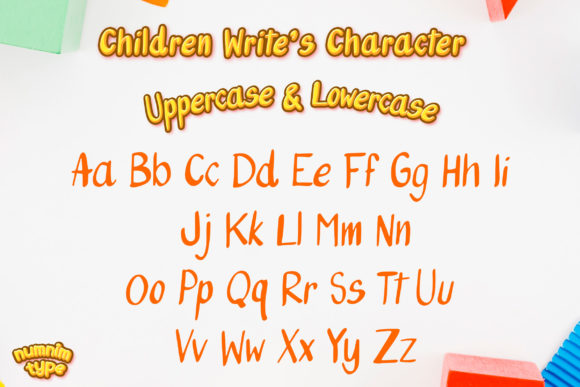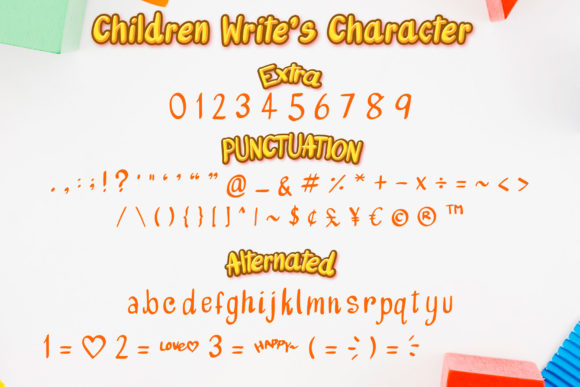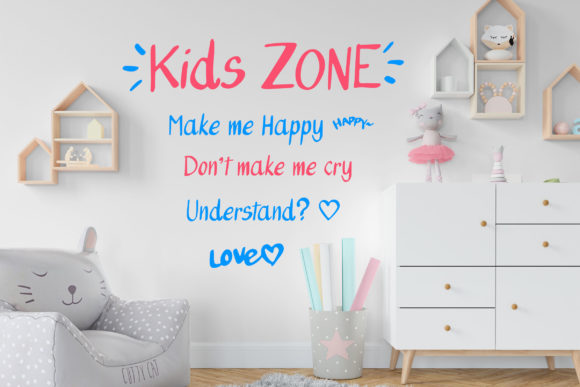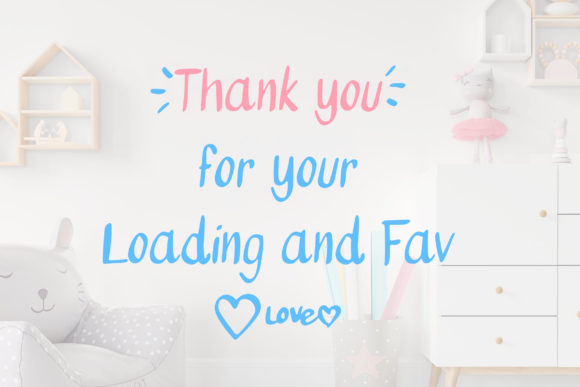
Children Write Font
About Children Write Font
Children Write is a joyful and delicate handwritten font. This font is perfect for children themed designs, especially when combined with bright colors.